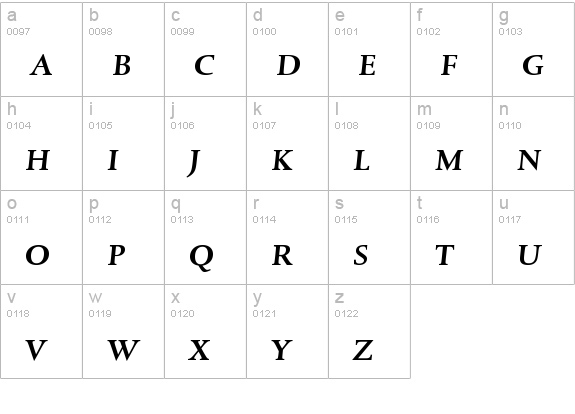
DTLAlbertinaTCaps-MediumItalic Font Details
DTLAlbertinaTCaps-MediumItalic font is a sophisticated and elegant typeface designed to make a statement. Its sleek and stylish italic design exudes a sense of class and refinement, making it perfect for projects that require a touch of sophistication. The medium weight strikes the perfect balance between boldness and delicacy, making it versatile for various design applications. The distinctive uppercase characters add a touch of uniqueness to any design, making it stand out from the crowd. Best of all, DTLAlbertinaTCaps-MediumItalic font is available for free download at FontsMarket.com. This means you can easily access this beautiful typeface and elevate your projects with its timeless appeal. Whether you're working on branding, editorial design, or any other creative project, DTLAlbertinaTCaps-MediumItalic font is sure to add a touch of class and elegance. Download it today and enhance your designs with this exquisite typeface.